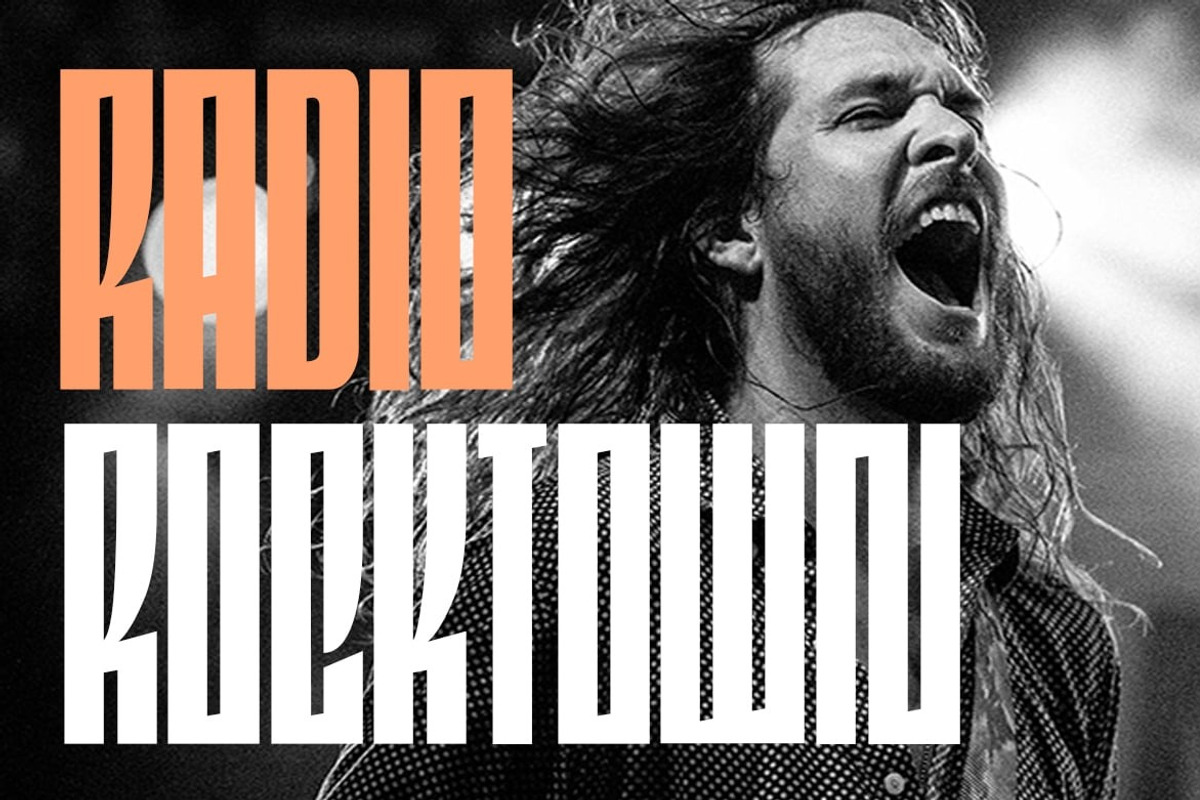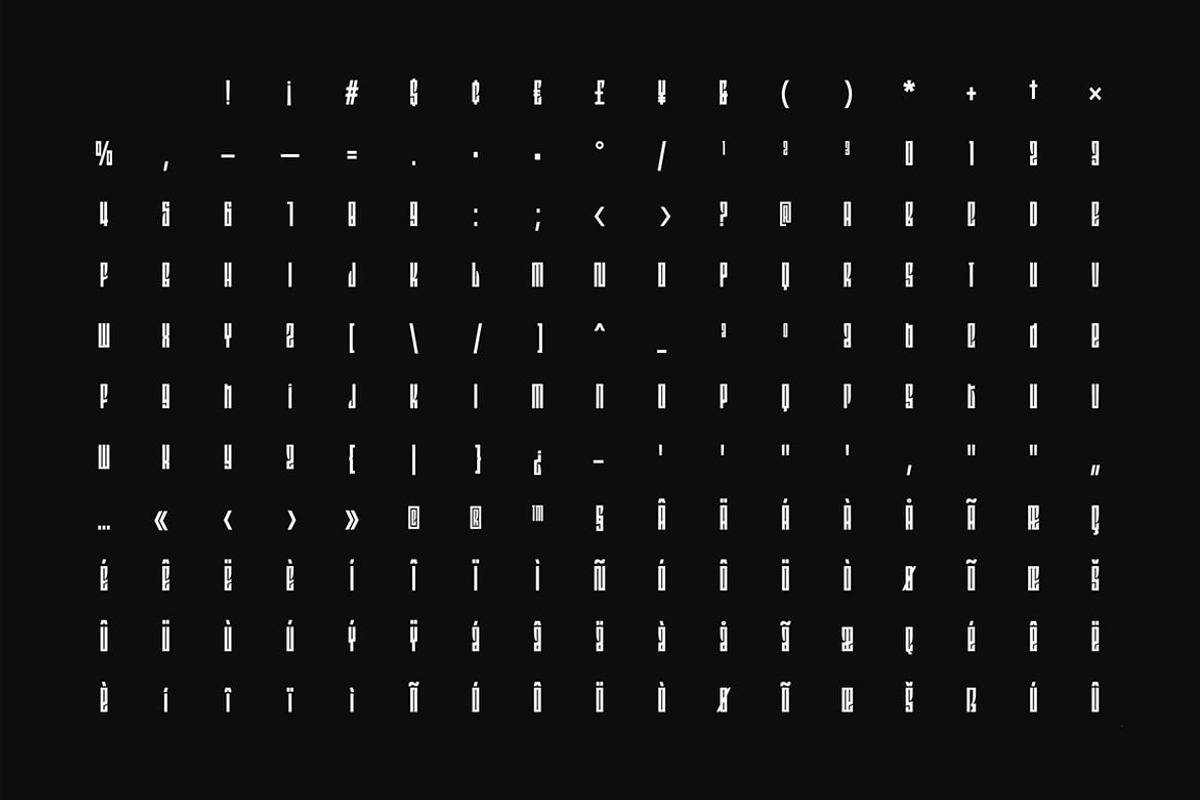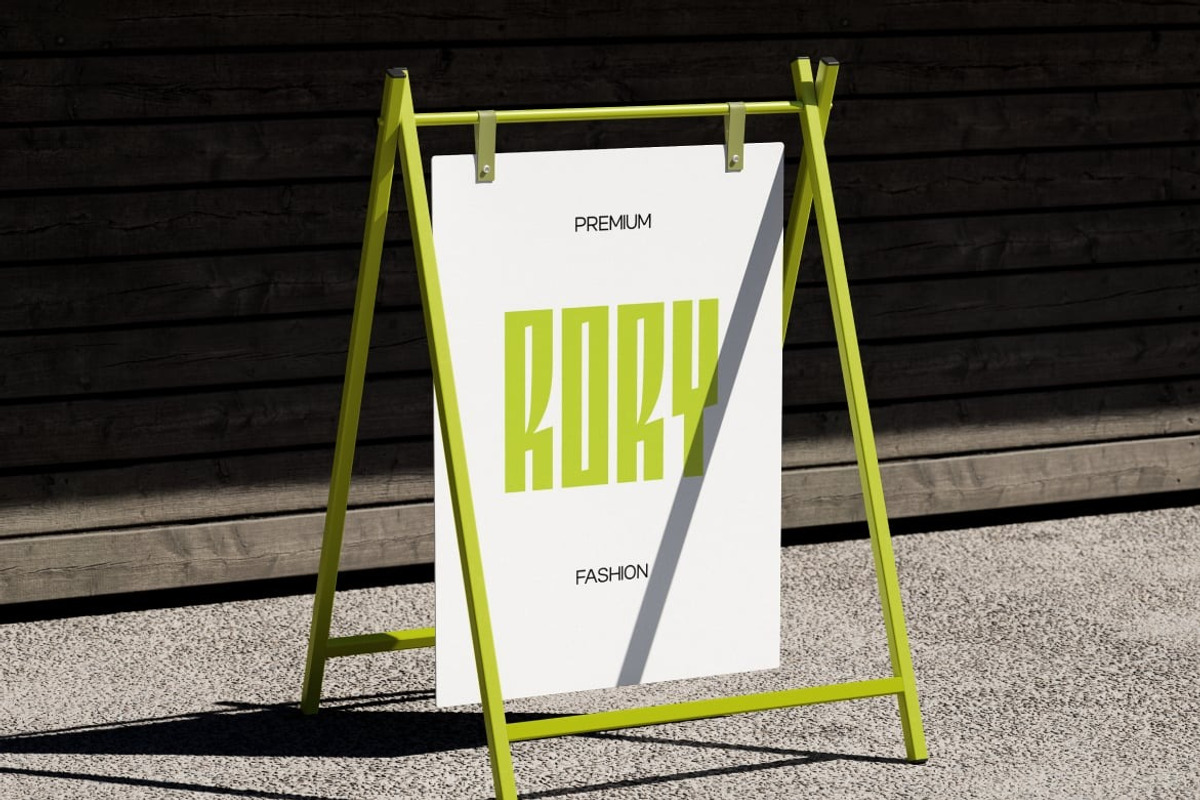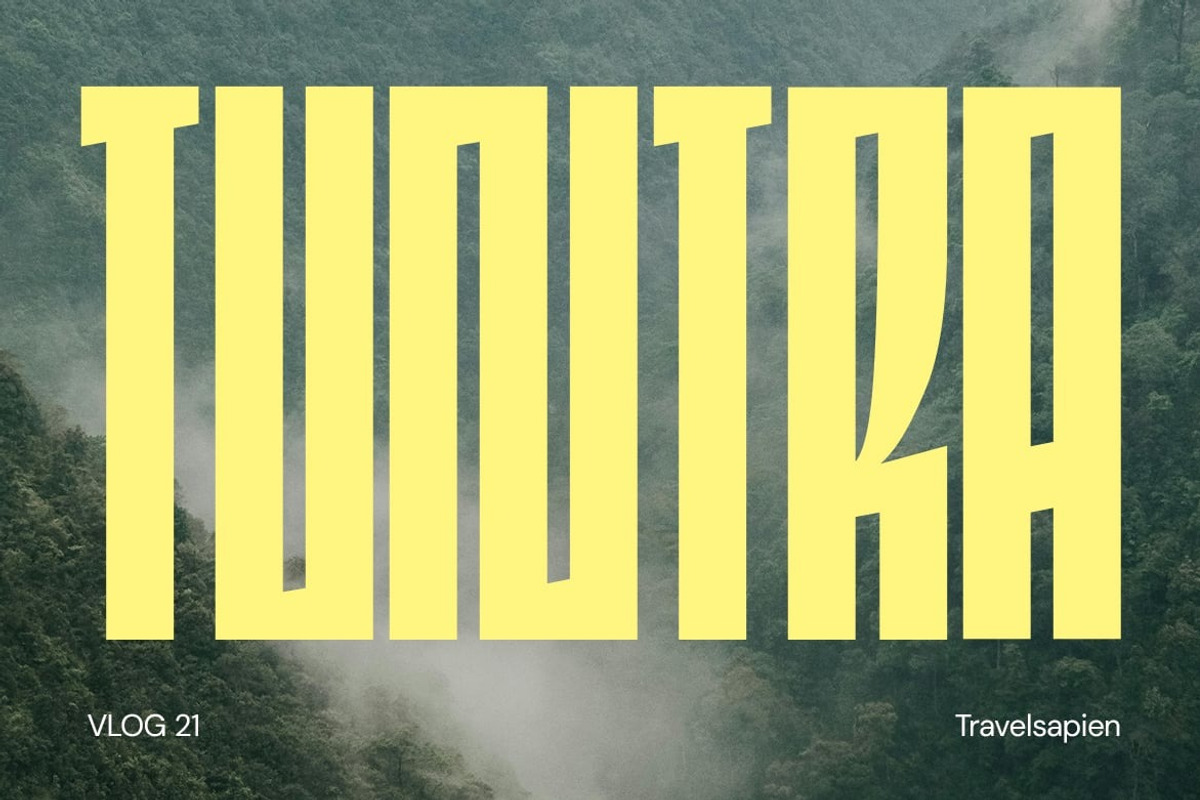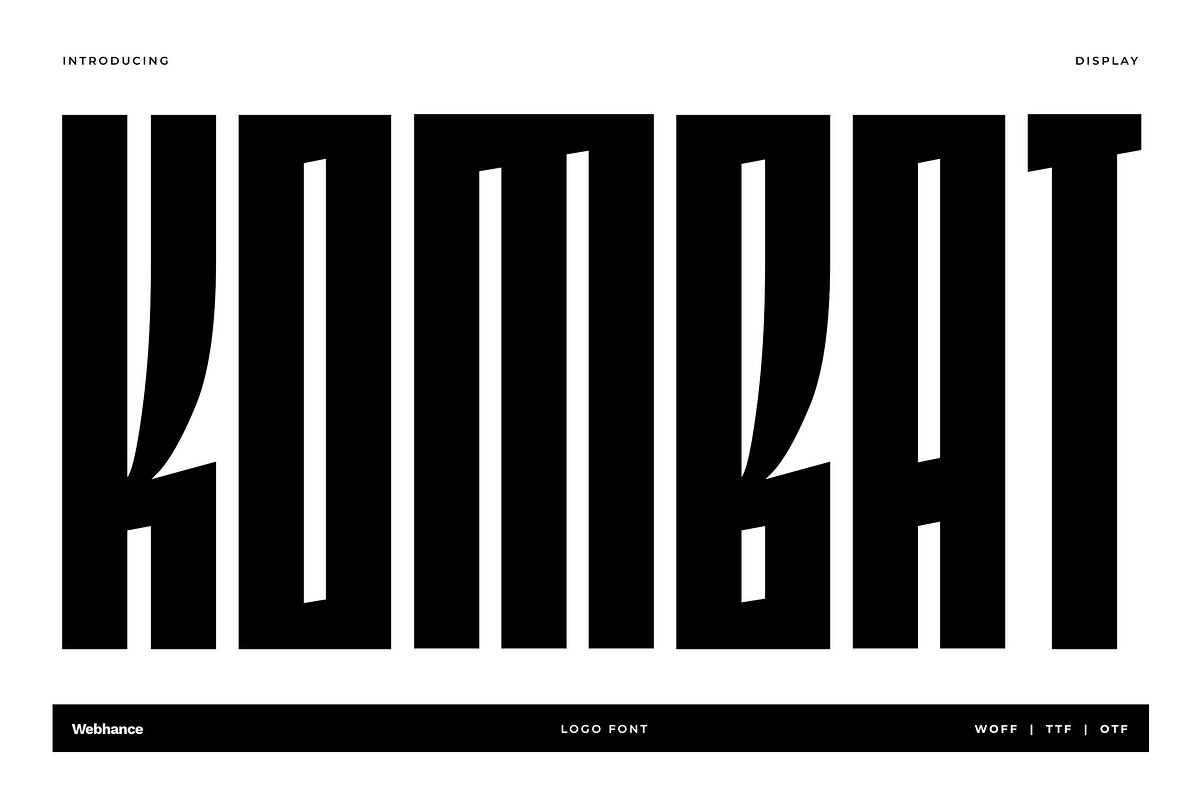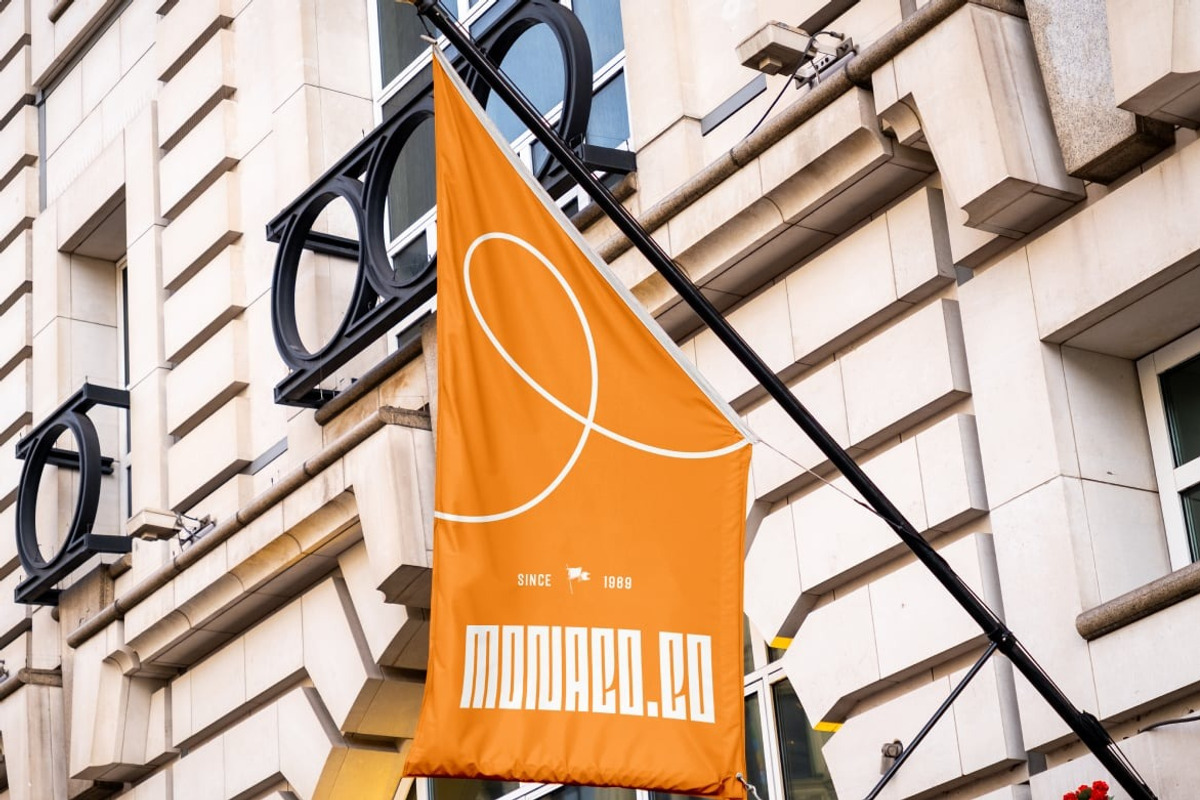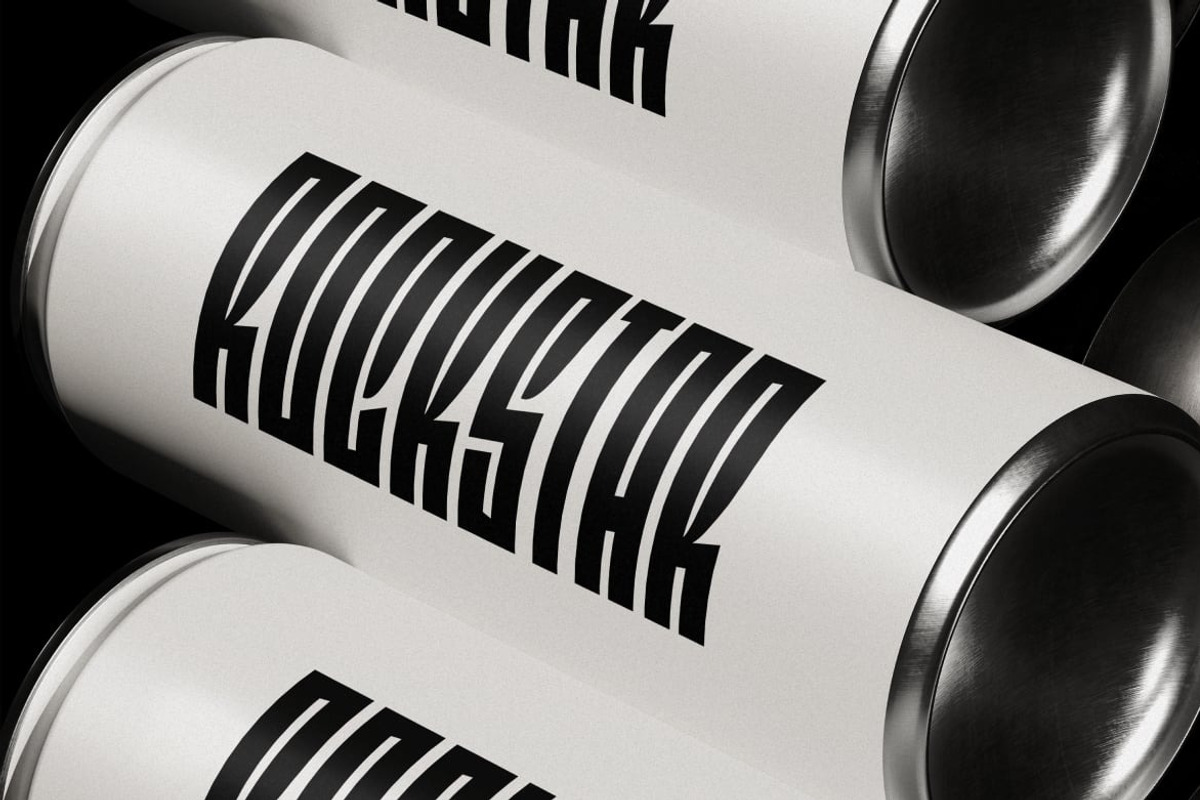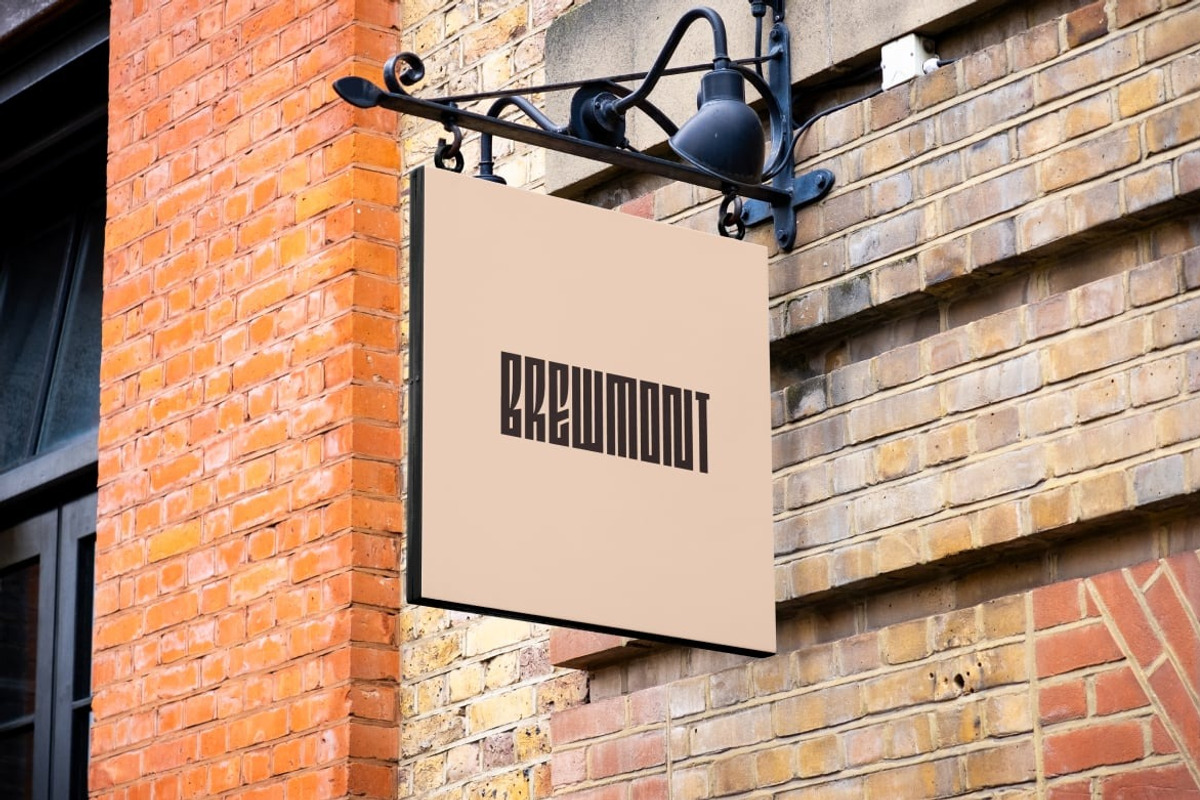
Edgar Kombat – Display
The Edgar Kombat font family is a bold and ultra-condensed display typeface crafted to deliver high visual impact in modern design. With its towering vertical form, sharp internal angles, and brutalist character, Kombat is made to stand out across posters, branding, album covers, packaging, and digital compositions.
It supports more than 100 languages, making it a solid and flexible choice for global design projects.